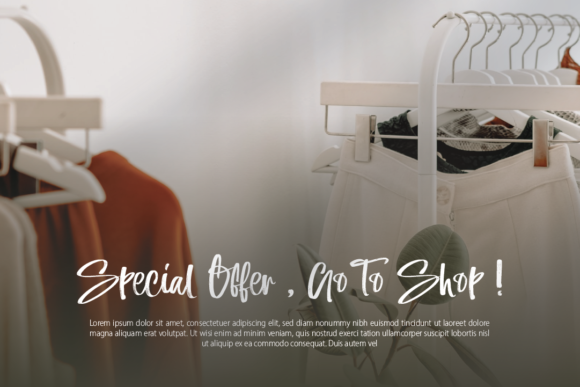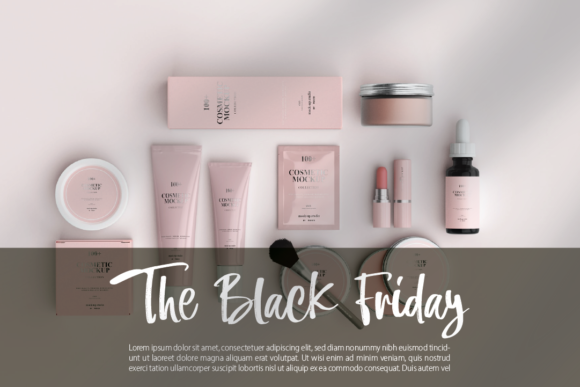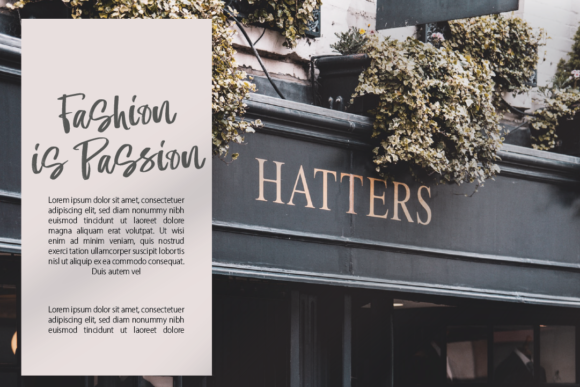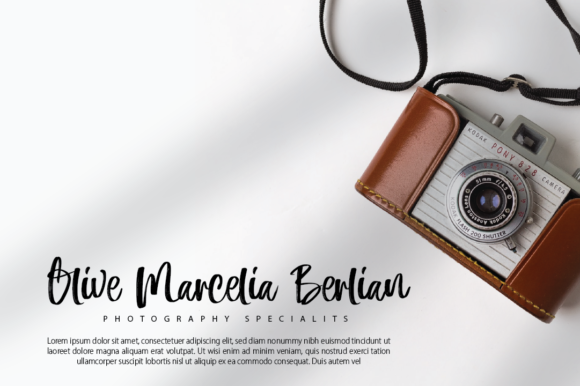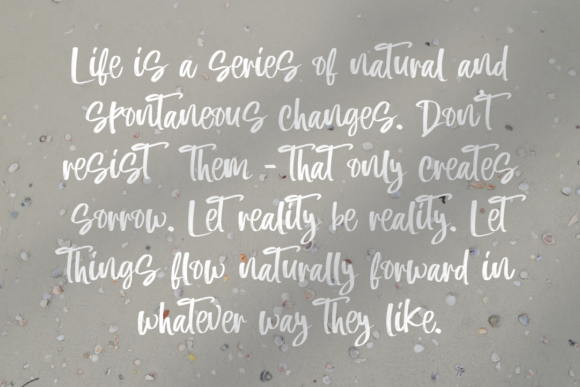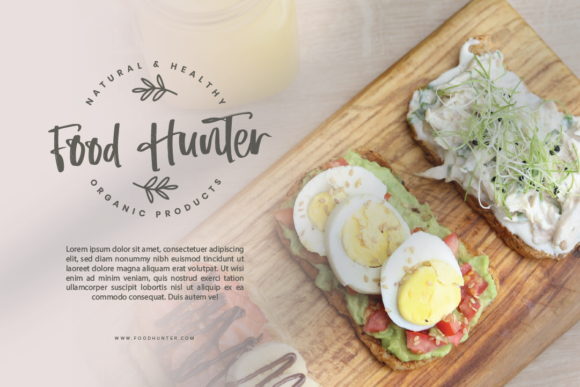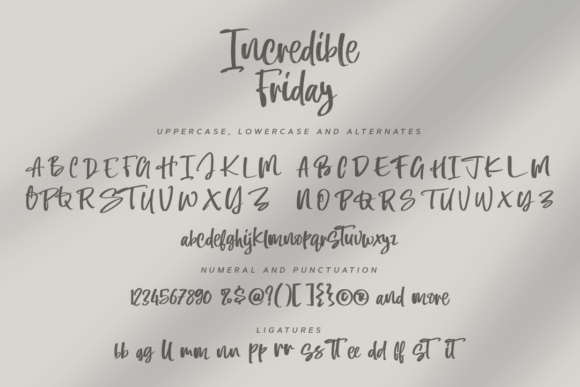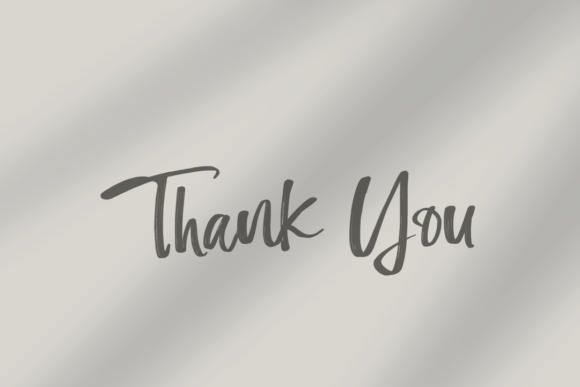
Incredible Friday Font
About Incredible Friday Font
Incredible Friday is a relaxed, casual, and brushed handwritten font that exudes a laid-back charm. Its effortless style makes it perfect for a variety of applications, from casual designs to more dynamic and expressive projects. This font is thoughtfully crafted and PUA encoded, ensuring easy access to all glyphs and swashes for seamless customization.
The relaxed and casual nature of Incredible Friday is captured in its brushed handwritten script, creating a friendly and approachable vibe. Whether you’re working on social media graphics, product packaging, branding projects, or any design where a casual touch is desired, this font effortlessly fits the bill.
The brush strokes in Incredible Friday contribute to its handwritten charm, giving it a natural and authentic feel. The font’s versatility allows it to adapt to various design contexts while maintaining a sense of relaxed elegance.
The PUA encoding feature further enhances the font’s flexibility, allowing you to access a wide range of glyphs and swashes effortlessly. This provides creative freedom, enabling you to personalize your designs with unique elements and flourishes.
Choose Incredible Friday when you want to infuse your projects with a relaxed and approachable handwritten style. Whether it’s for creating a friendly brand identity or adding a casual touch to your designs, this font ensures that your work exudes a laid-back yet refined aesthetic.